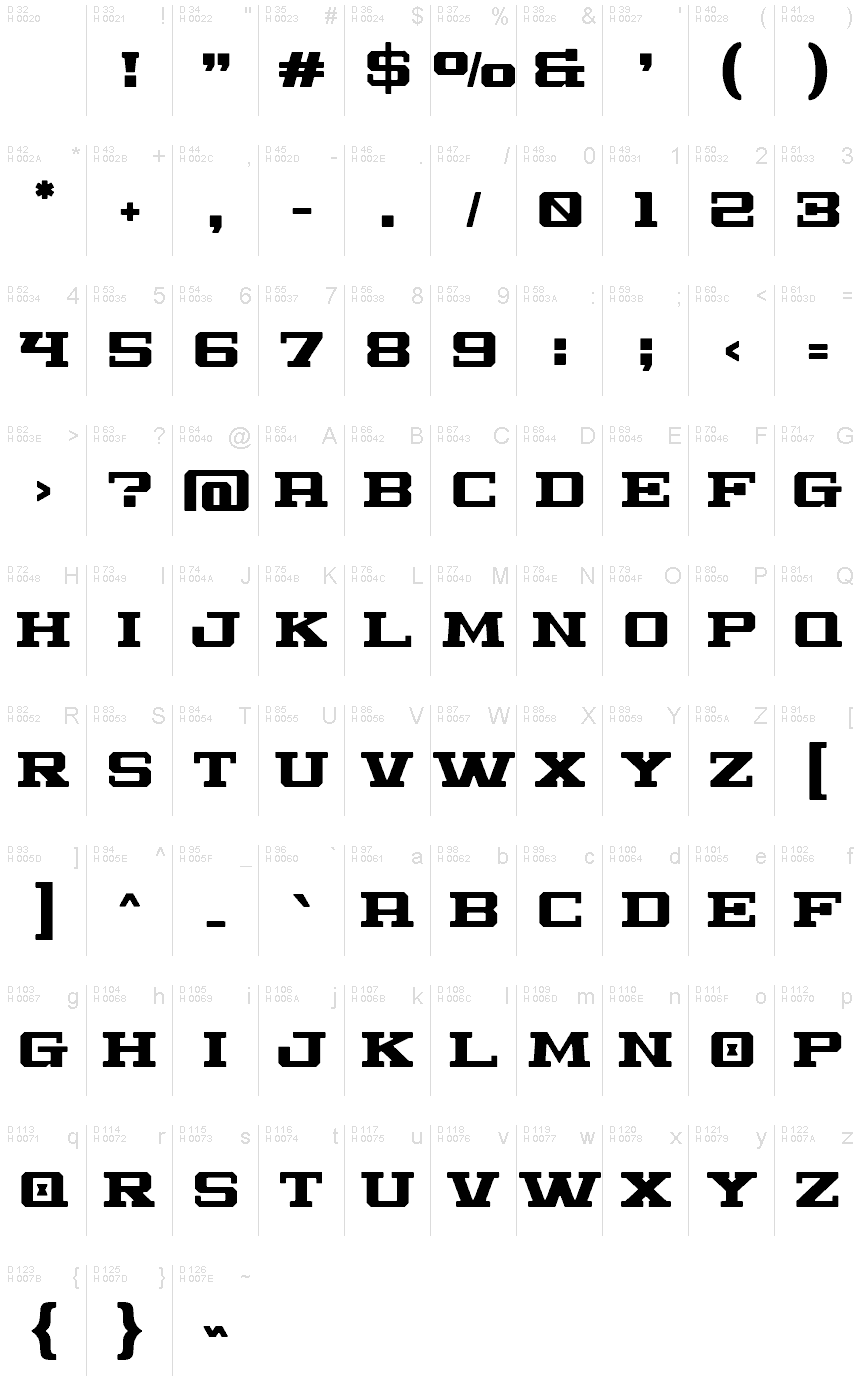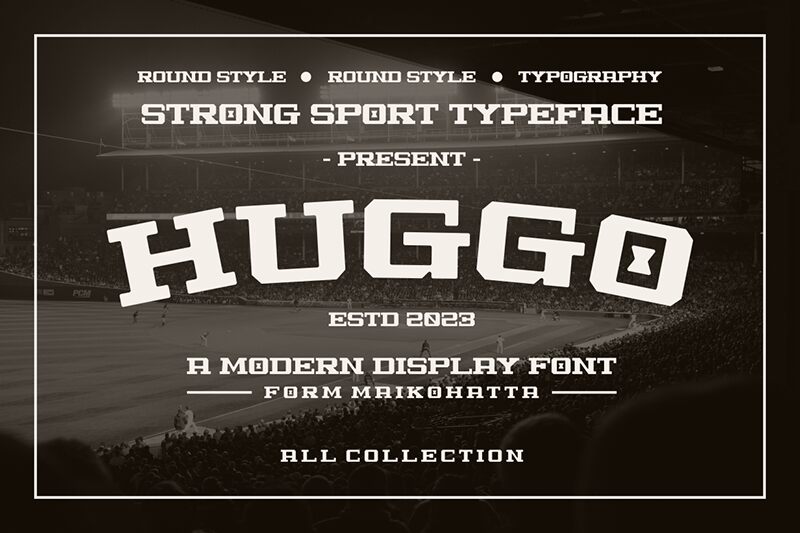
Huggo
Huggo font by Gilang Ternadho features a strong geometric form and modern aesthetic, combining an industrial feel with digital influence. This bold and expanded style makes an impactful presence in designs that require eye-catching text. Enjoy professional-looking outcomes with this free techno display font which perfectly balances legibility and visual appeal.
Experience Huggo across several projects like posters, books covers, magazines heading, banners, website hero titles, and social media posts. Further chances for utility include items such as T-shirts, badges, labels stickers or customized merchandise.